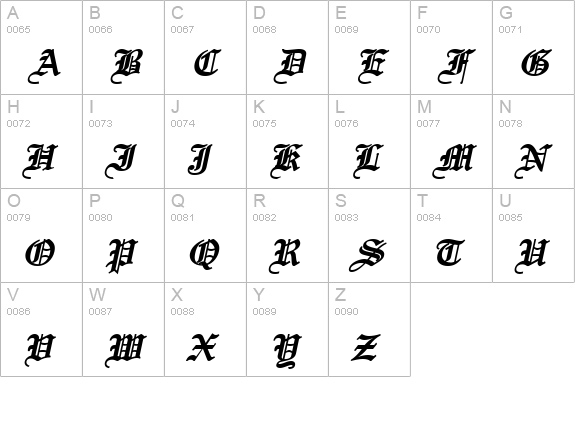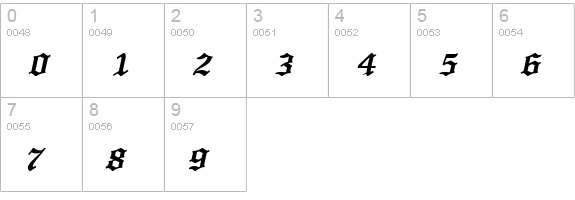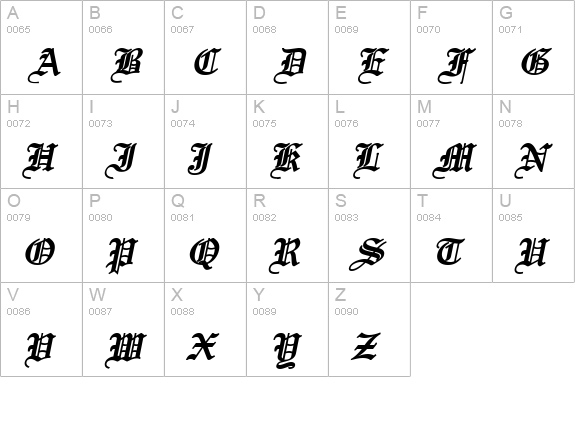
England BoldItalic Font Details
England BoldItalic is a sophisticated and elegant font that exudes a sense of timeless charm. Its bold and italic styling adds a touch of flair to any design project, making it perfect for headings, titles, and other attention-grabbing text. The sleek lines and graceful curves of this font make it versatile and suitable for a wide range of applications, from branding to editorial design. What's even better is that England BoldItalic is available for free download at FontsMarket.com, allowing designers and creatives to access this beautiful font without any cost. With its classic appeal and modern twist, England BoldItalic is sure to elevate your designs and leave a lasting impression on your audience. Download it today and add a touch of sophistication to your projects.